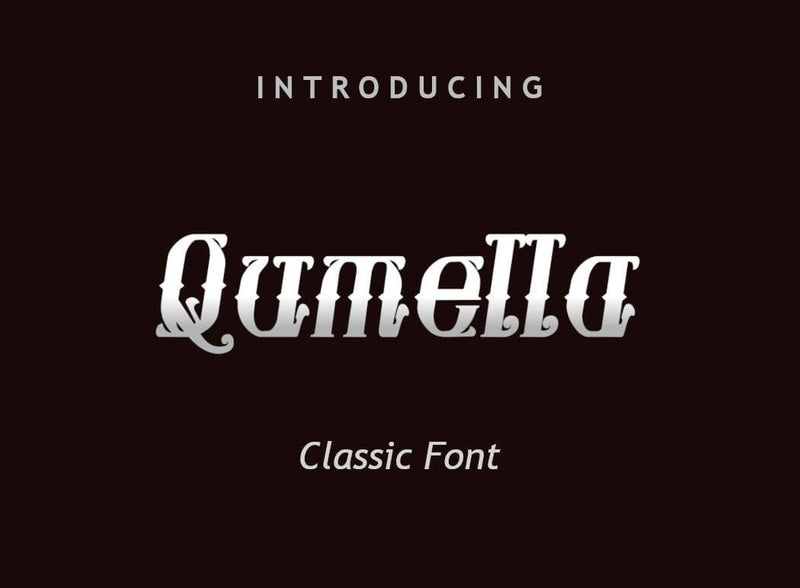
Qumella Font
Qumella is a bold classic display font with luxury feel.
Qumella is great for all your vintage theme designs, quotes, logotypes, branding, product packaging and many more.
- Uppercase A-Z
- Lowercase a-z
- Numbers 0-9
- Accents
- Punctuation
- Custom Ligatures